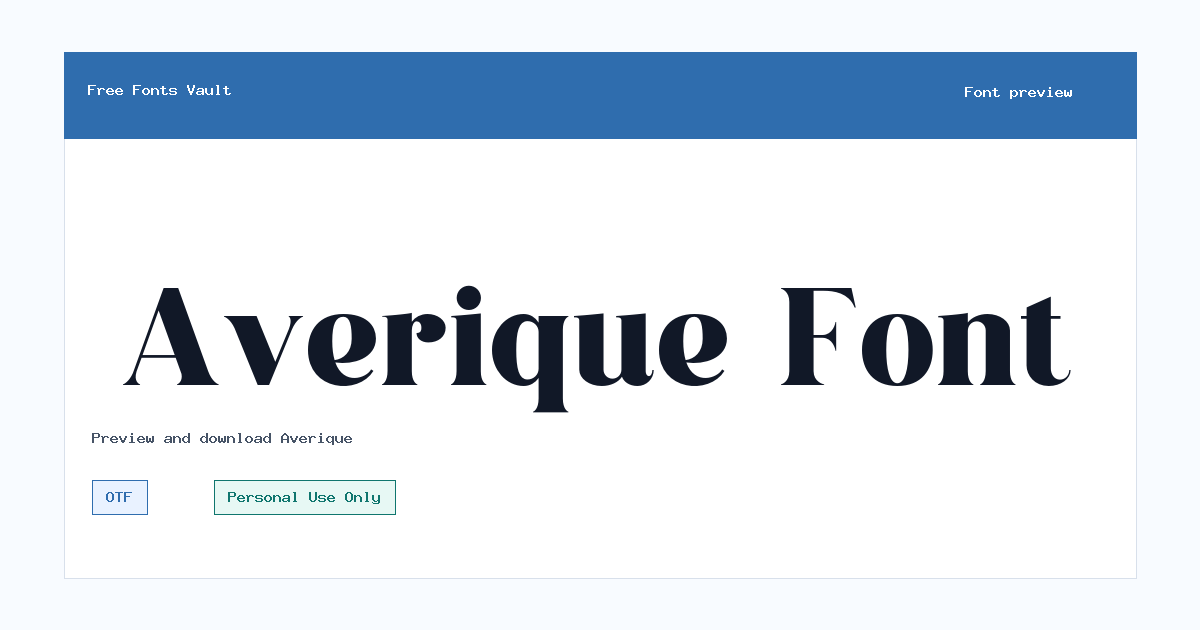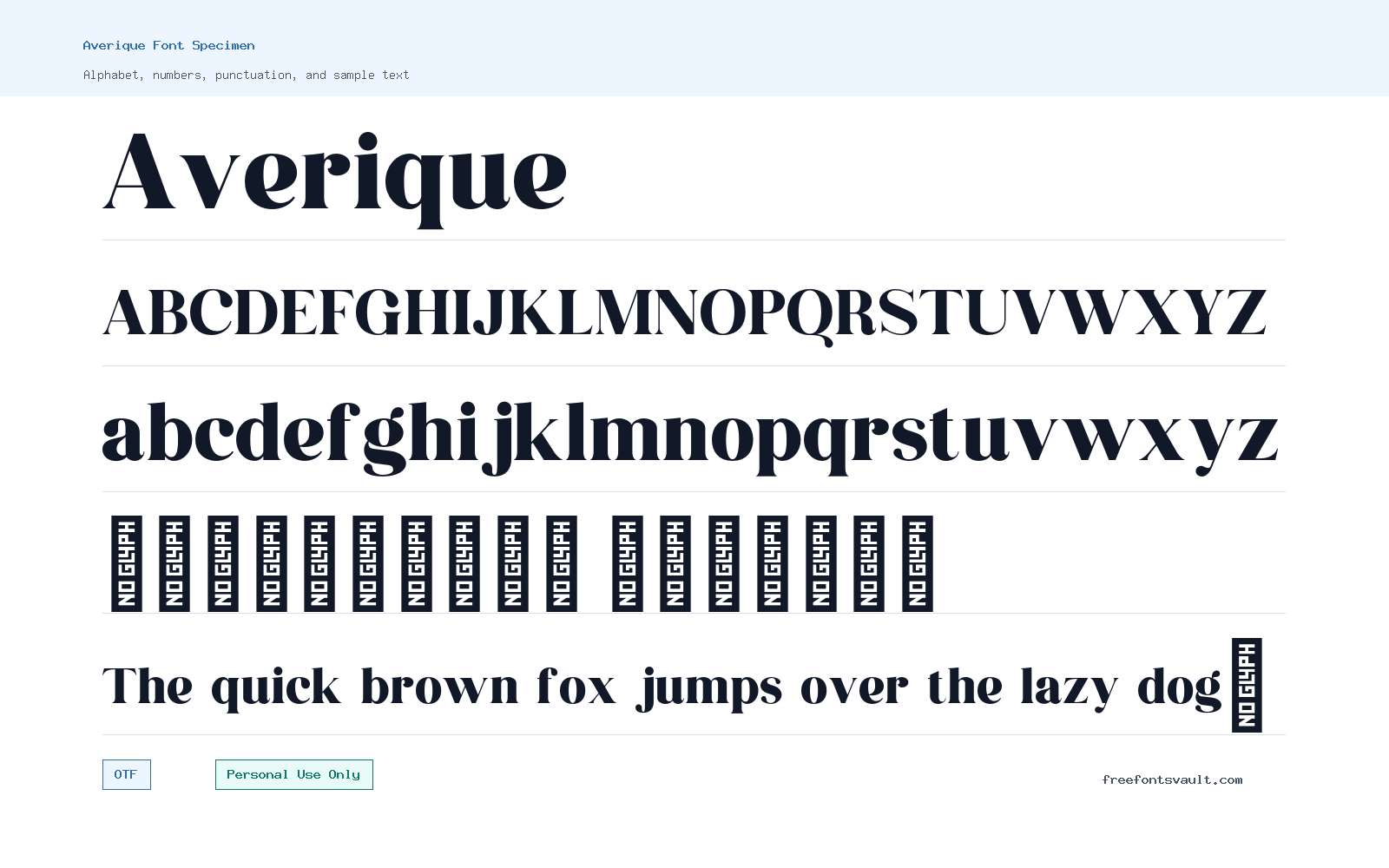
Averique
Averique is a serif display font with a polished, editorial feel. It is best suited for short pieces of text where the letter shapes can stand out, such as titles, branding drafts, invitations, and social graphics.
About Averique Font
Averique works well when you want a serif style that feels refined without making the layout look too busy. Because the available file is a regular weight, it is easiest to use for headlines, nameplates, pull quotes, and other text that does not need a full weight range. The font can bring a more elegant tone to a design, especially when used with generous spacing and a clean background.
For best results, test Averique in the preview tool with the exact words you plan to use. Serif display fonts can look very different depending on letter combinations, size, and spacing. Try it in uppercase, title case, and a few short phrases before downloading. If you need body copy, pair it with a simple sans serif or a quiet text serif so Averique can stay focused on headings and accents.
- Serif style suited to display text and short headings
- Editorial-style titles, quotes, invitations, and social media graphics
- Personal branding drafts, logo concepts, posters, and elegant short text layouts
What is Averique best used for?
Averique is best for short display text such as headings, invitations, quotes, posters, and branding mockups. It is not the safest choice for long paragraphs unless you test the spacing and readability first.
How should I pair Averique with another font?
Pair it with a simple sans serif for body text, captions, and interface copy. Keeping the second font plain helps Averique remain the visual focus.